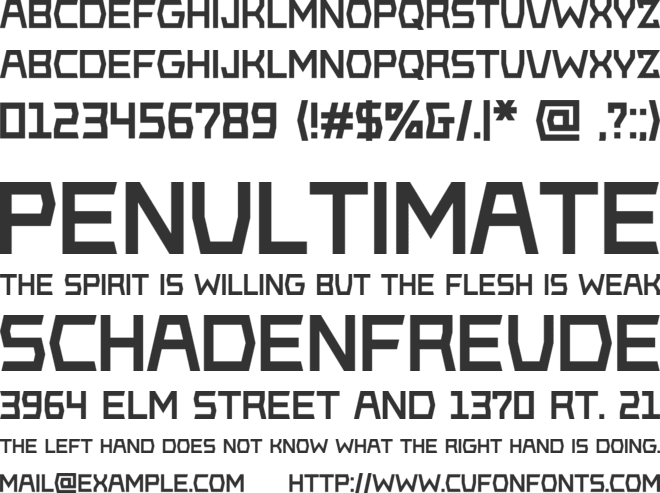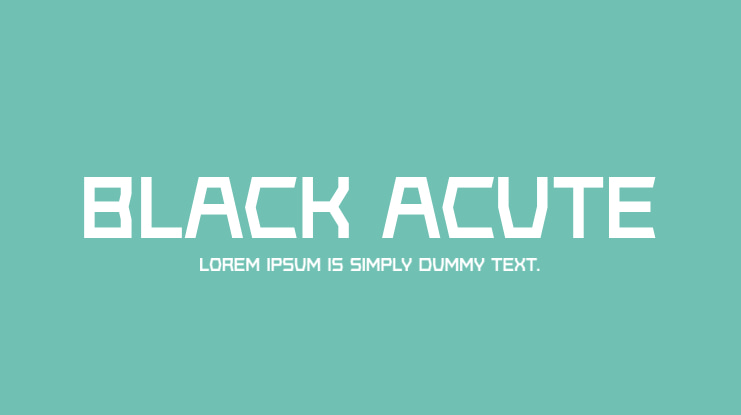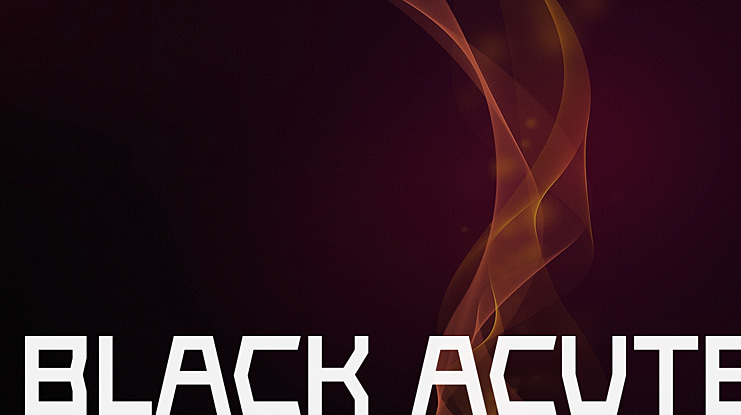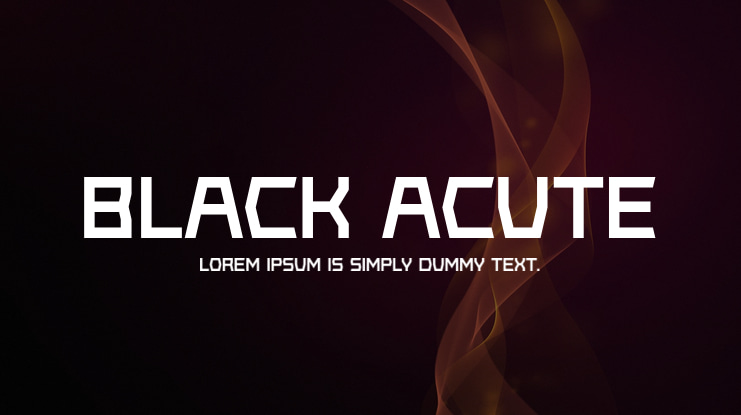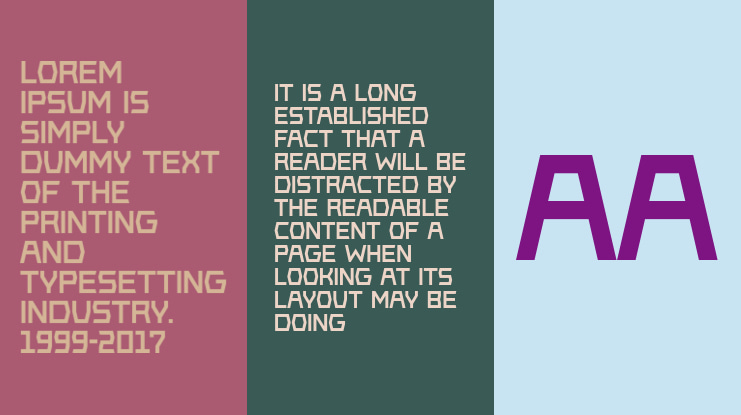
Black Acute Font
Black Acute font is designed for logos, posters, banners. Use for headings, not solid text. All letters are uppercase only. Free font for personal and commercial use.